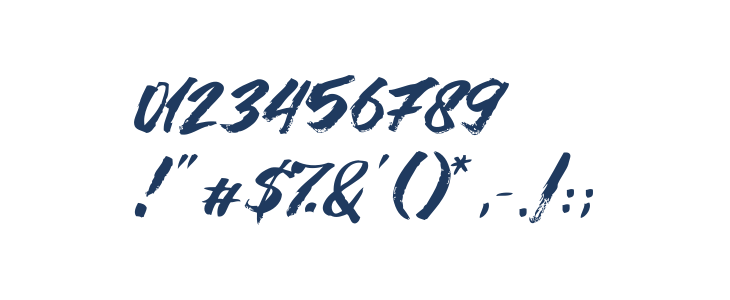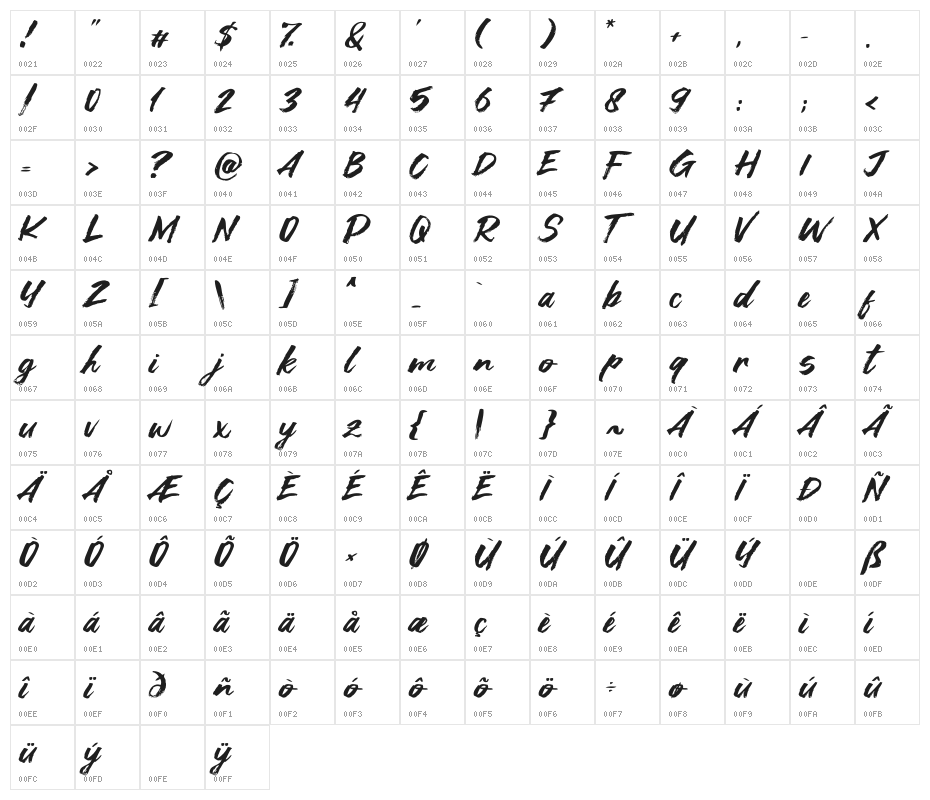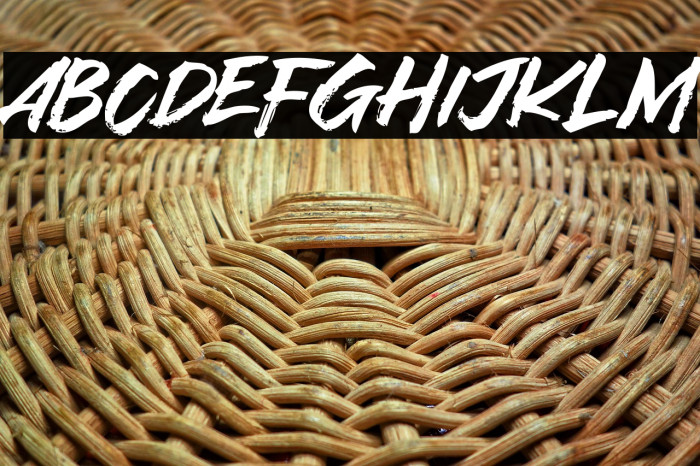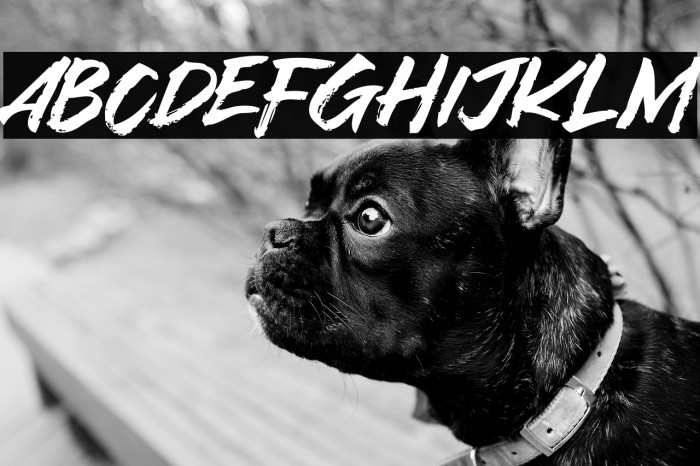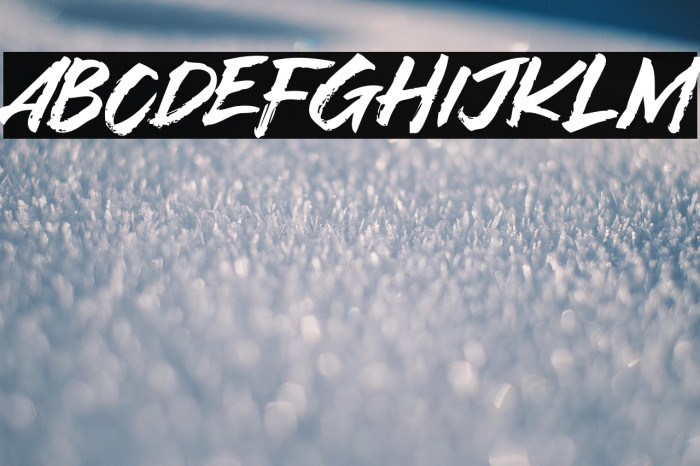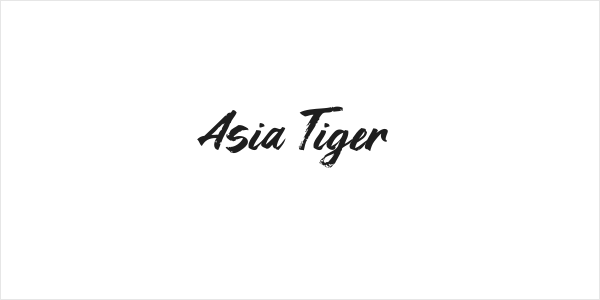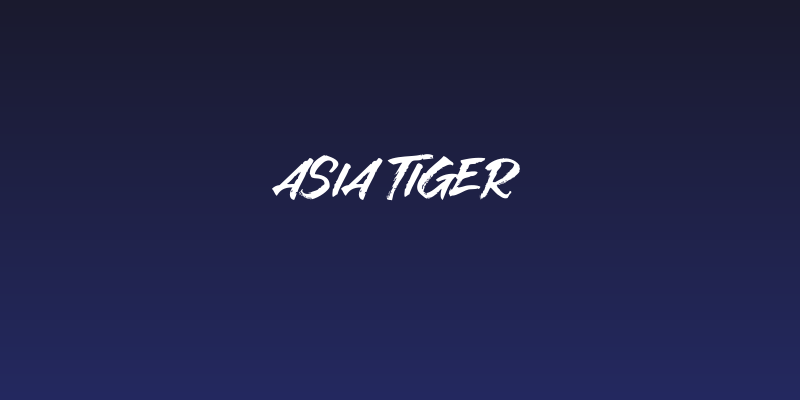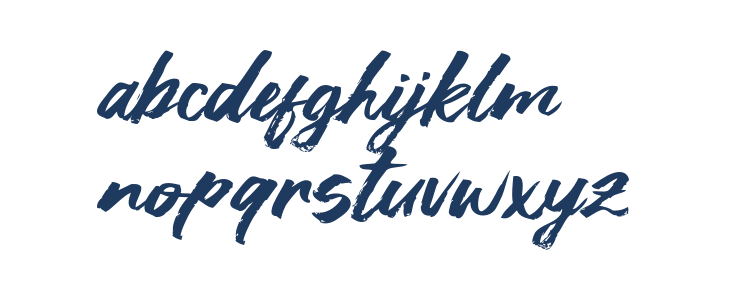
Asia Tiger Font
Asia Tiger Description
This font exhibits a bold and dynamic brush script style, characterized by its energetic and expressive strokes. The letters have a hand-painted appearance, with varying thickness that adds a sense of movement and vitality. The uppercase letters are particularly striking, with a strong presence that commands attention. The lowercase letters maintain the same lively quality, with smooth, flowing connections between characters. Numbers and special characters are equally bold, ensuring consistency across all elements. This font's unique style makes it ideal for projects that require a personal, artistic touch.
| Proposed Projects | Ideal for branding, posters, artistic projects, and any design requiring a bold, personal touch. |